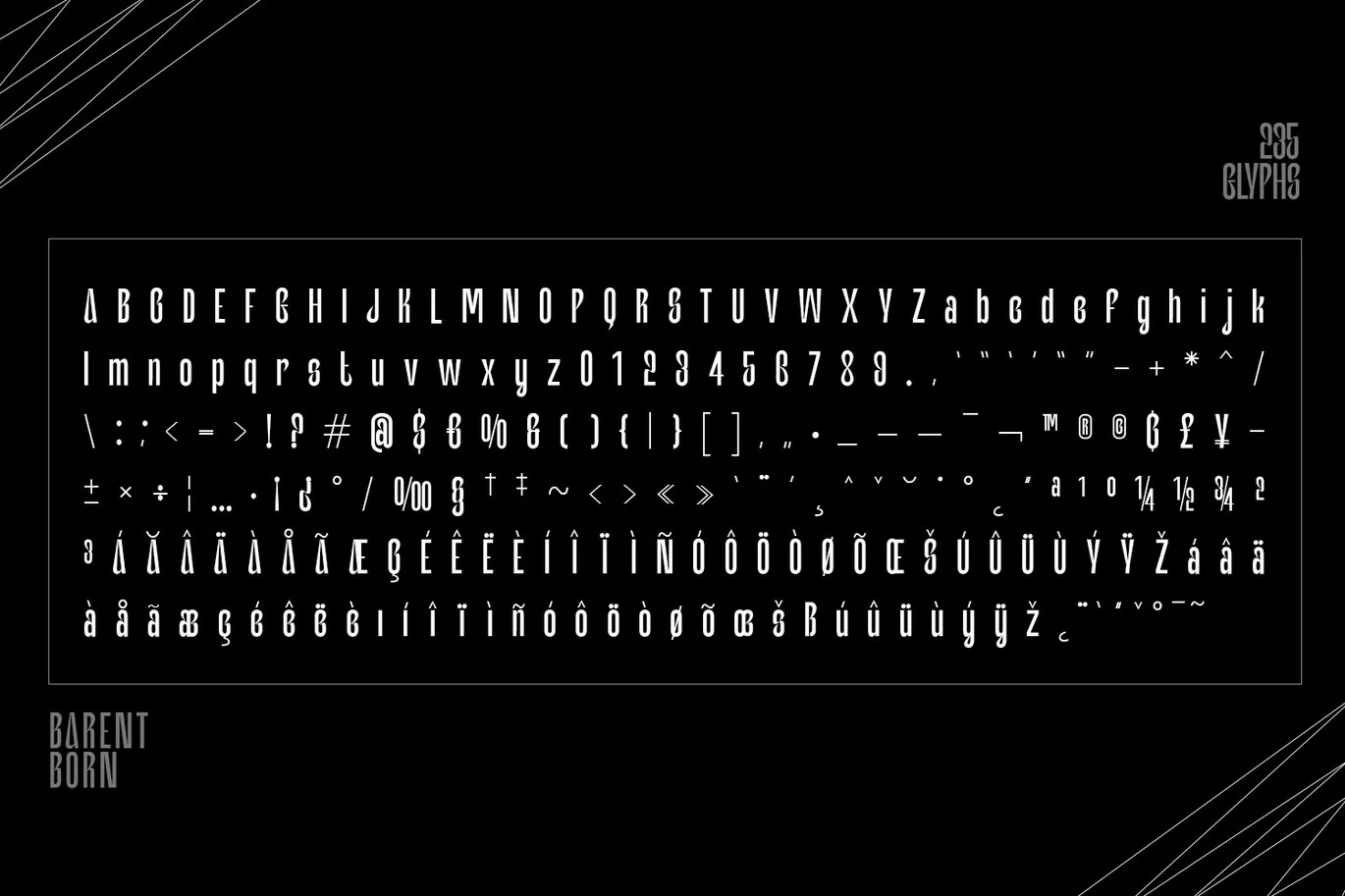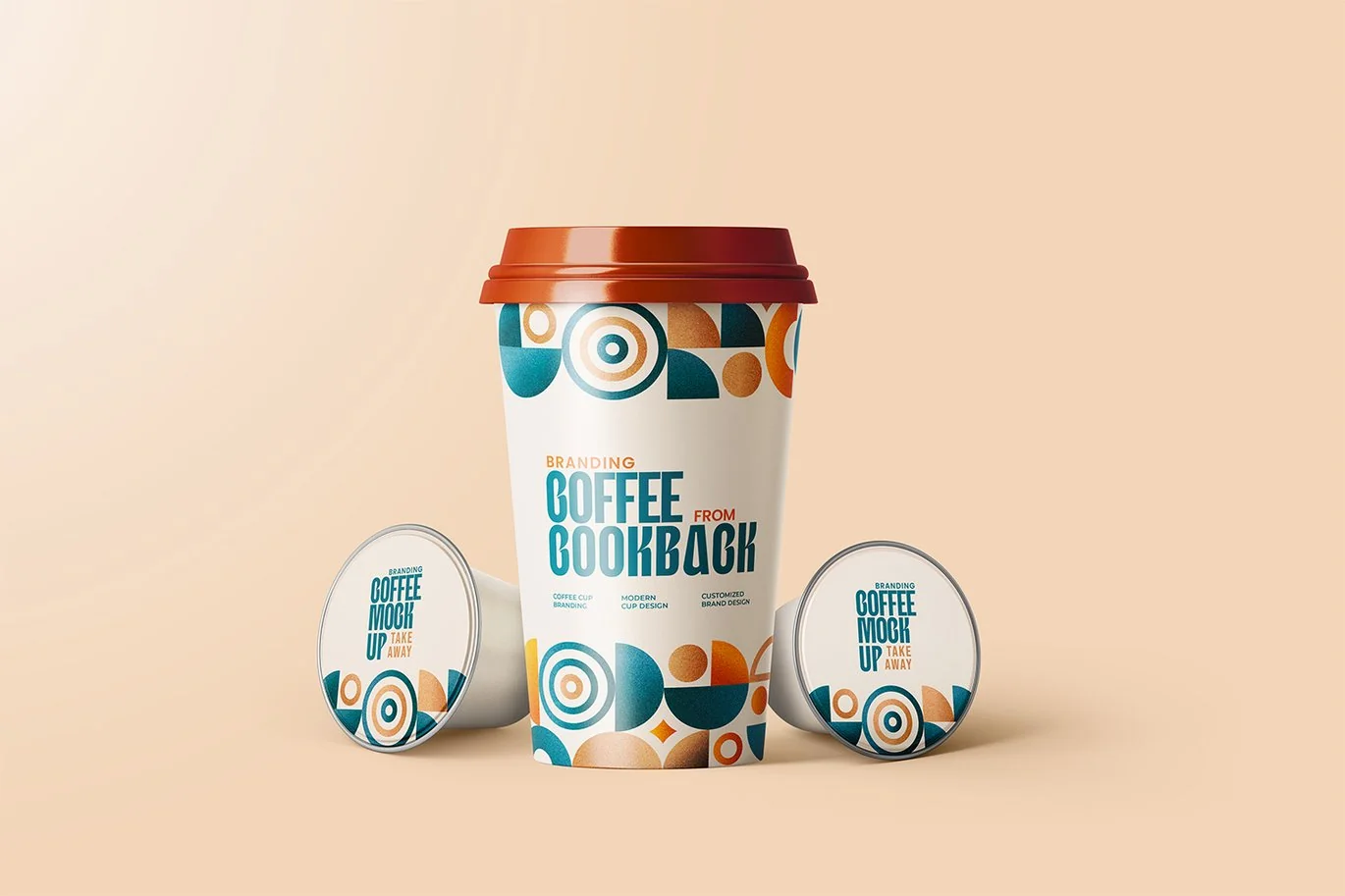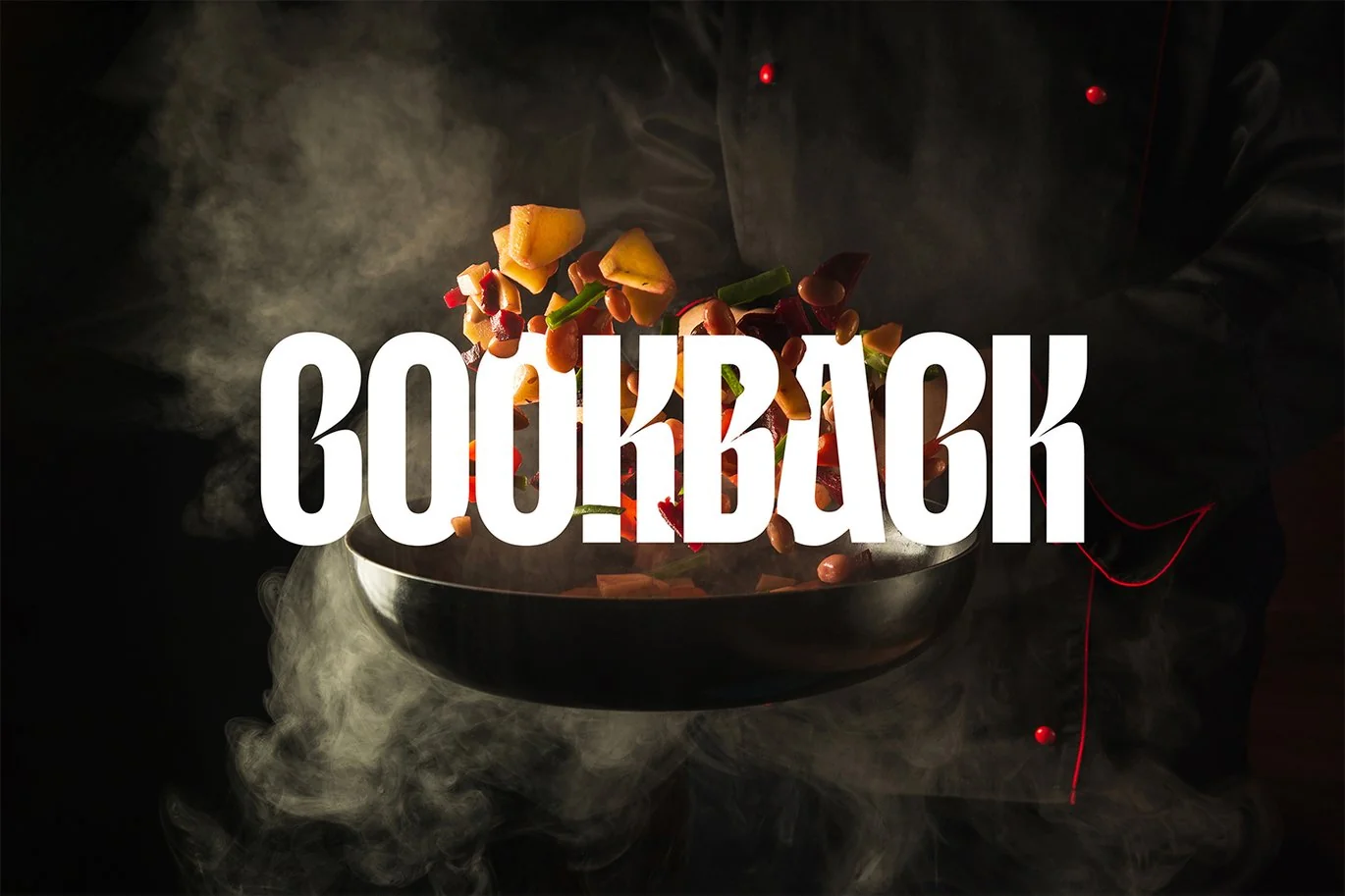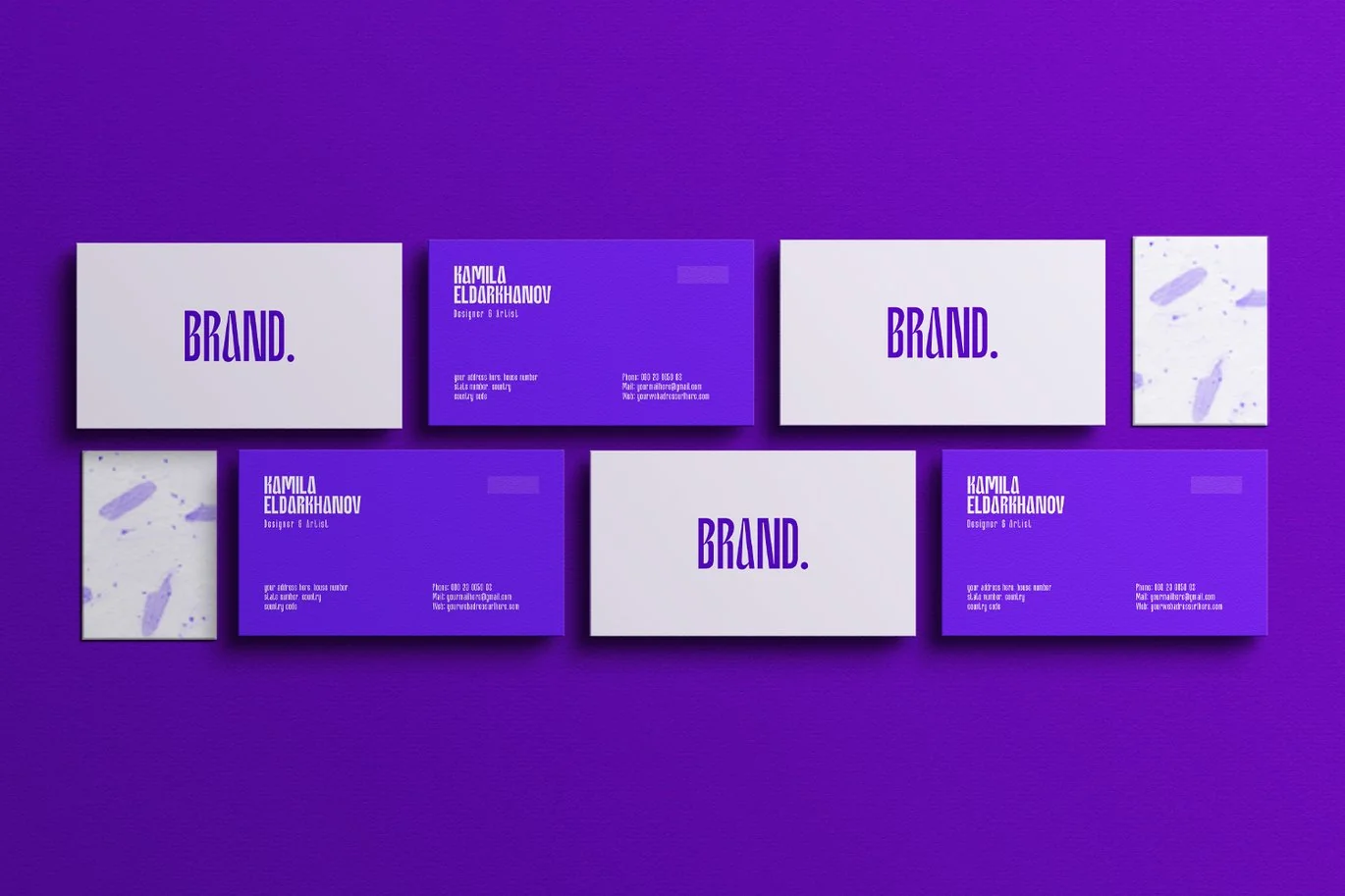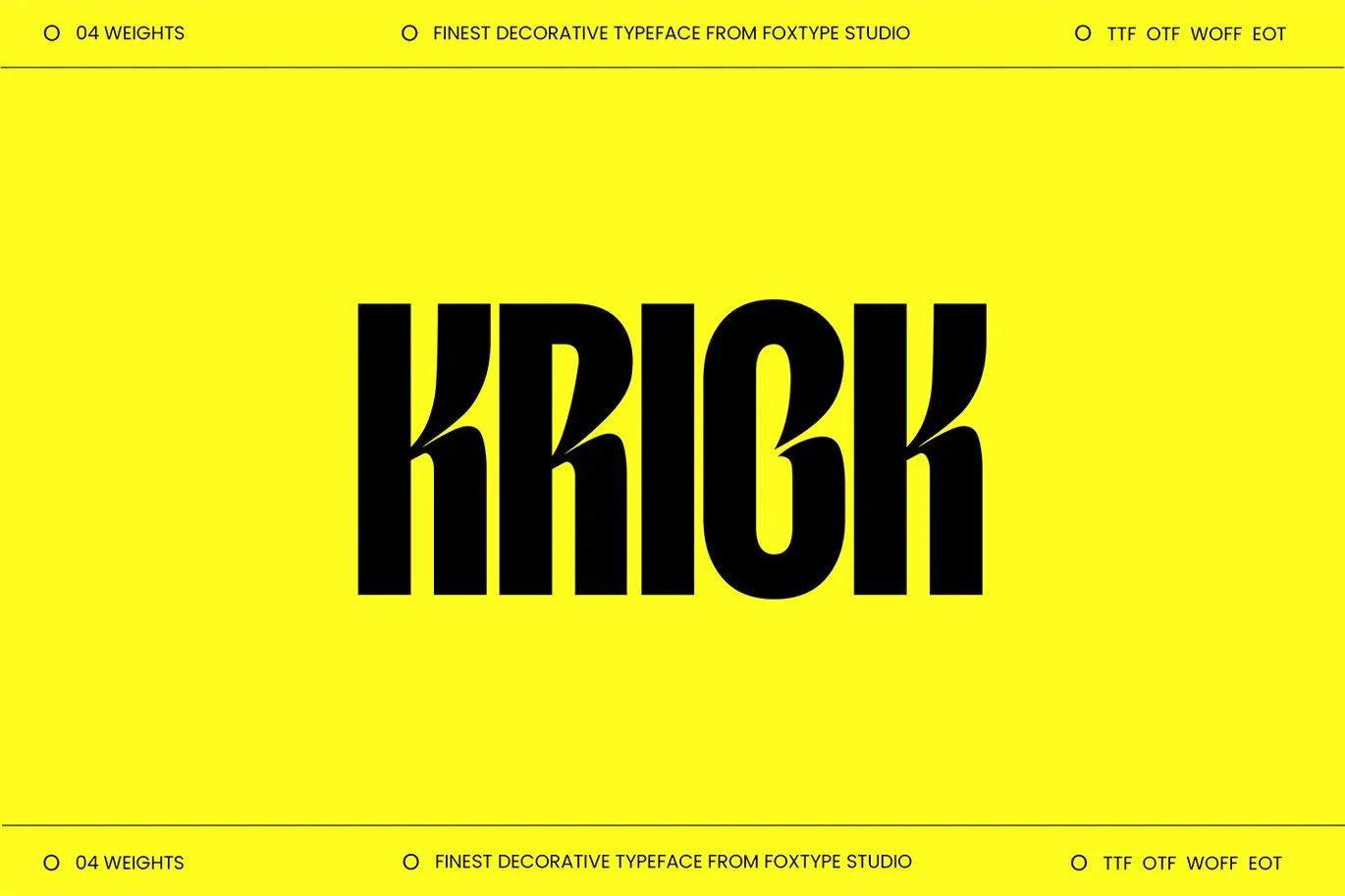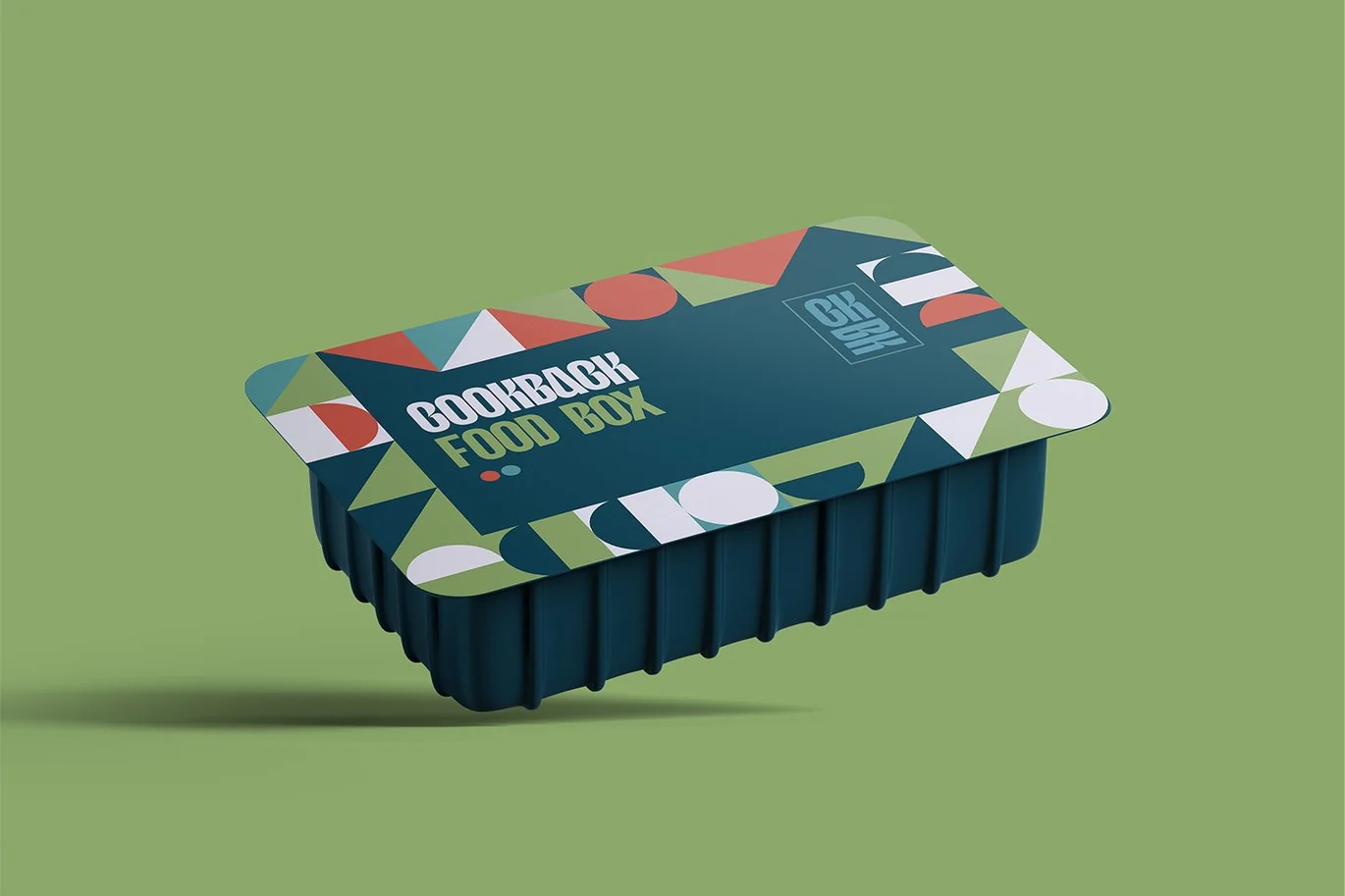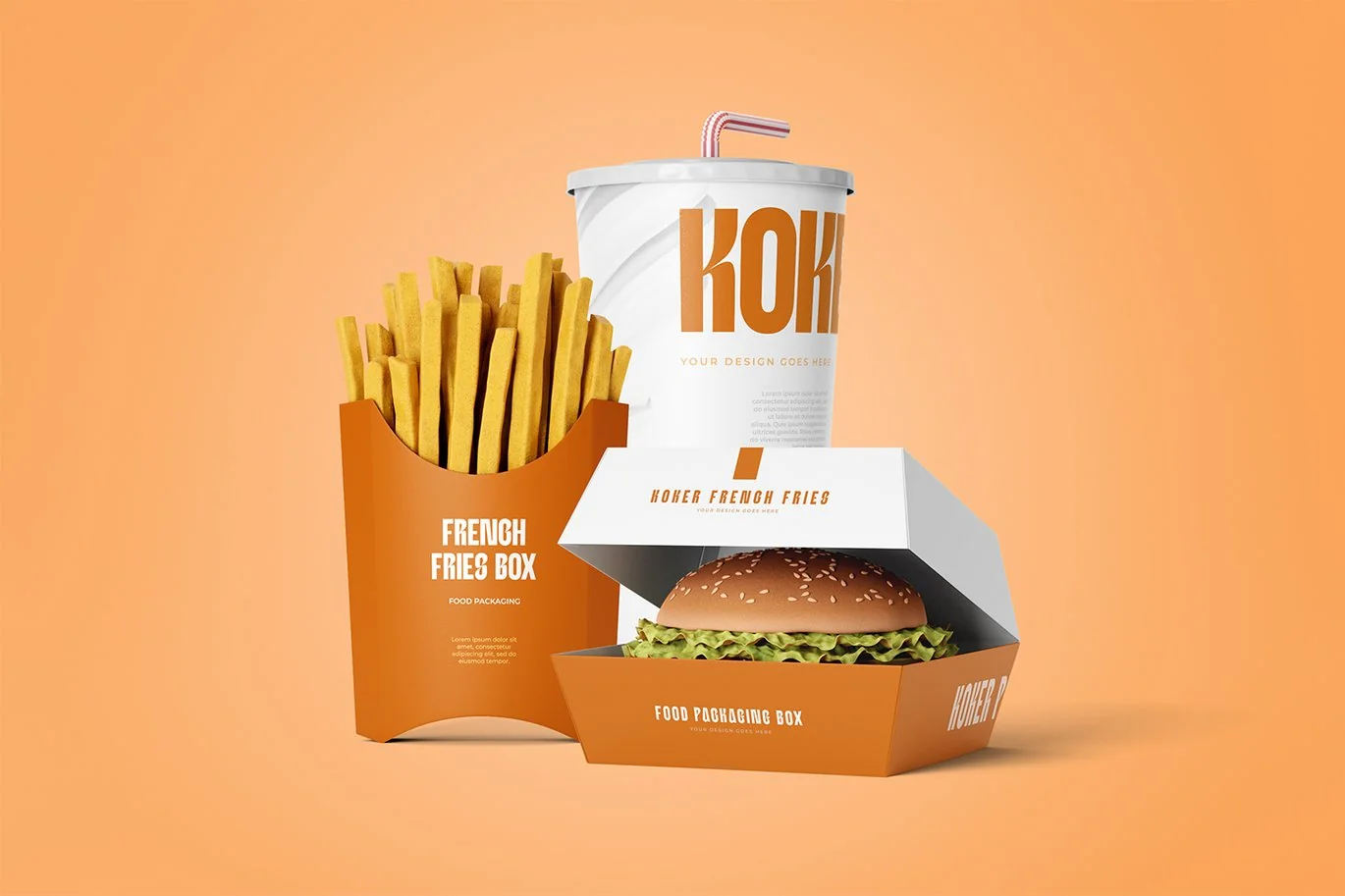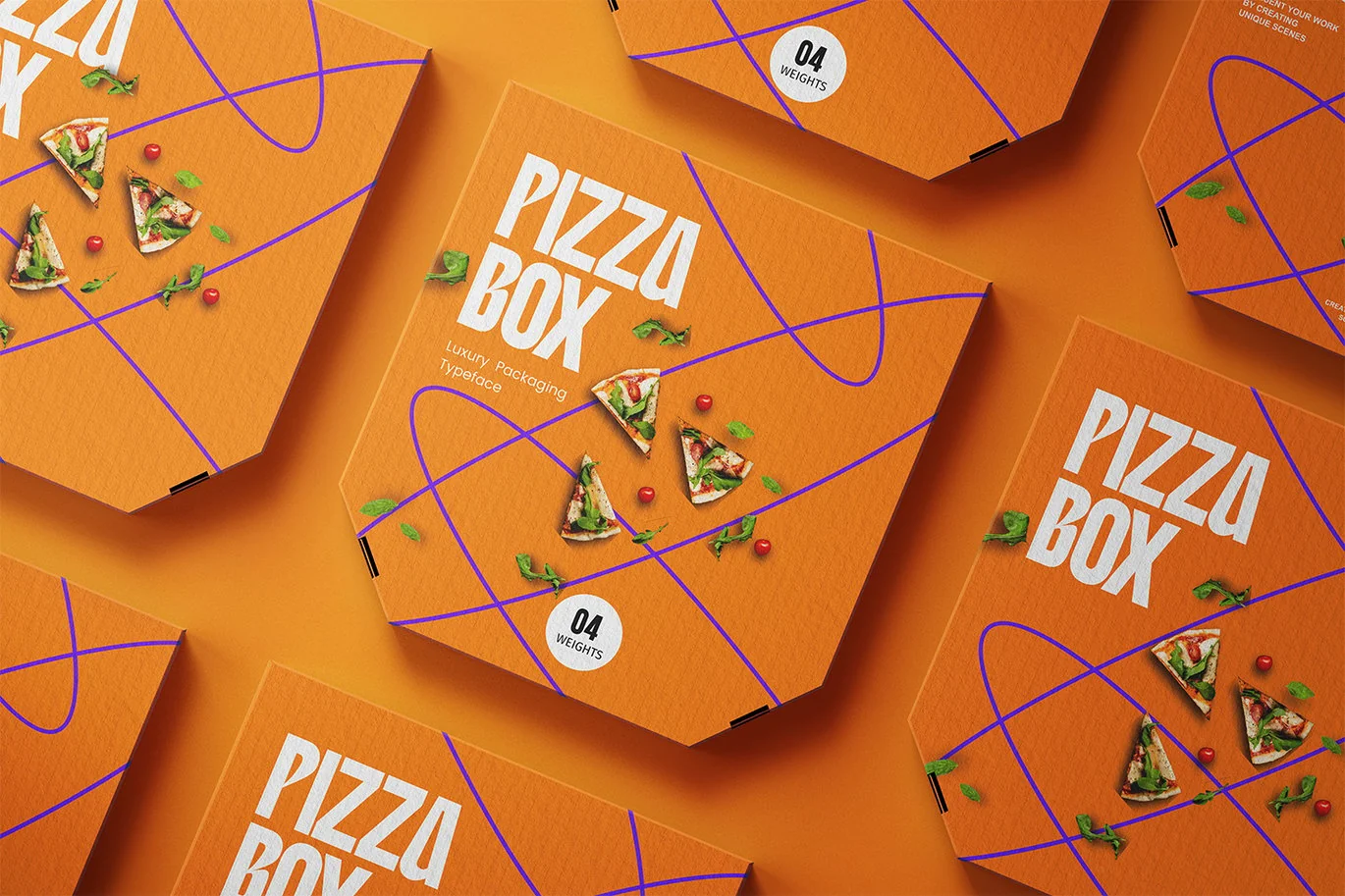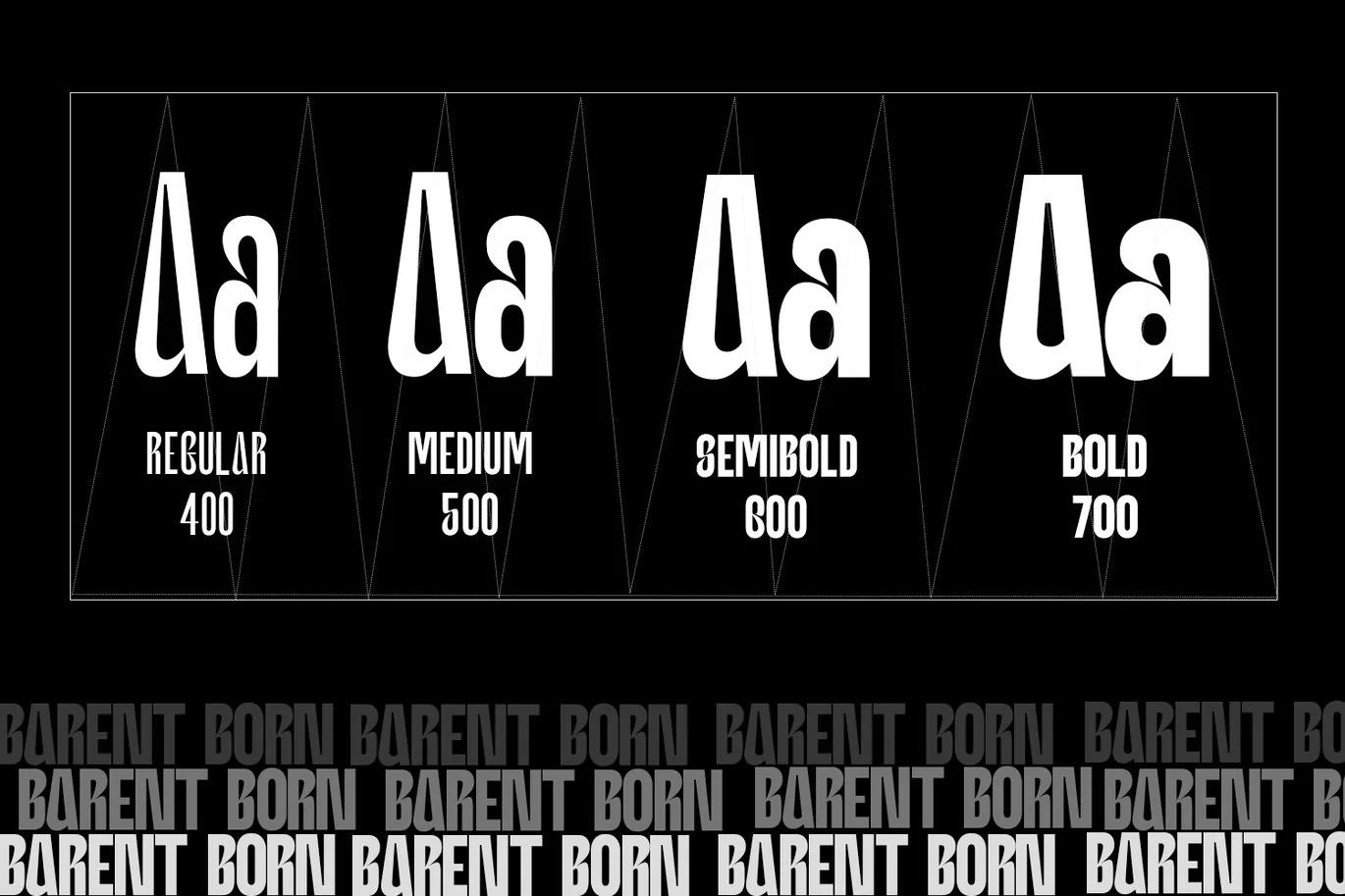
Krick Display Typeface
Introducing Krick Display new generation Typeface with 4 Weights. Krick Typeface created with the vision of to attract the audience to your brand . The finest details of this typeface are methodically and mathematically created. Krick is created with all the tasks of a corporate font and also for the usage in a variety of projects, including branding, logos, titles, headlines, servers, posters, screens, display, digital ads, and everything else.
We are putting a lot of effort on this font as a long-term project. The Typeface includes four Weights. Regular, Medium, SemiBold, and Bold.